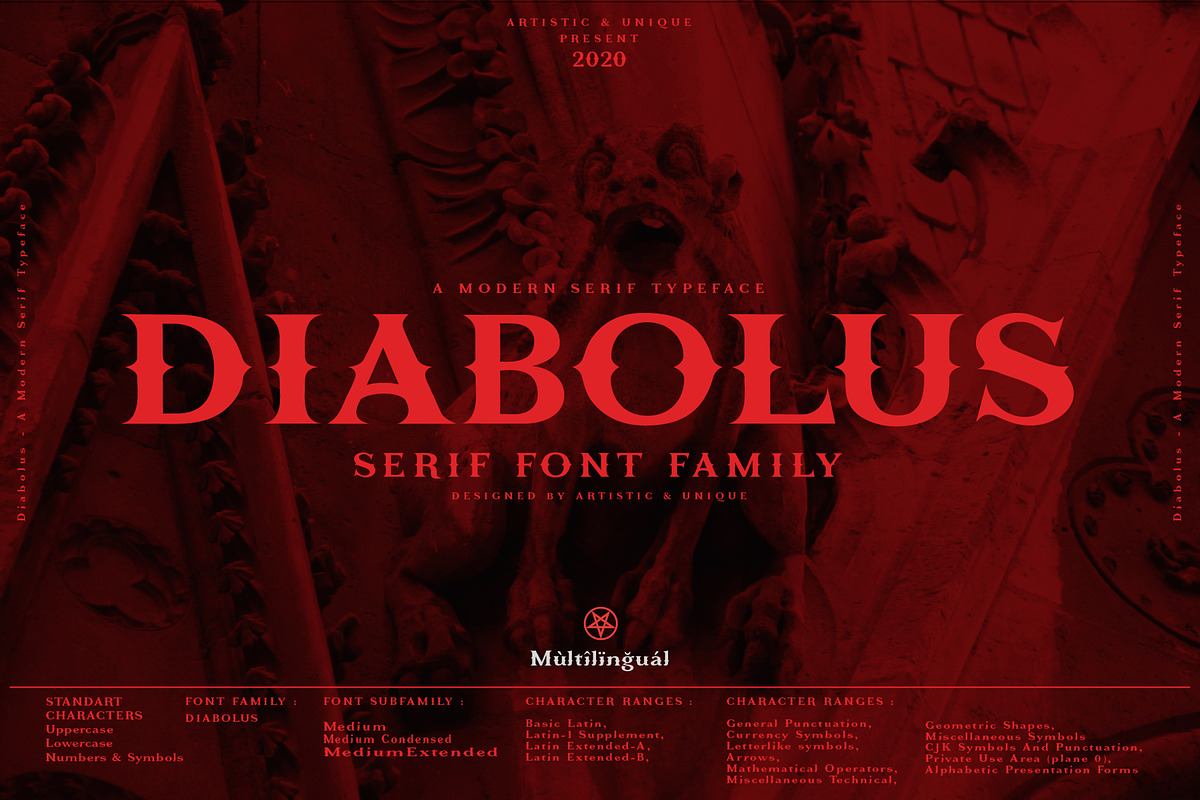
Diabolus – Serif Font Family Free Download is a dramatic and powerful typeface family that combines classic serif elegance with a dark, edgy twist. With sharp terminals, high contrast strokes, and gothic-inspired details, Diabolus is perfect for book covers, band logos, luxury branding, editorial layouts, and dark fantasy projects.
This versatile font family includes multiple weights and styles, making it easy to create consistent, expressive typography across headings, subheadings, and body text. Whether you're designing for print or screen, Diabolus delivers a bold, mysterious presence.
Designers love Diabolus for its commanding style, old-world influence, and modern functionality. Want to give your next project a refined, dramatic flair? Download Diabolus – Serif Font Family Free Download and let your typography speak with elegance and power.